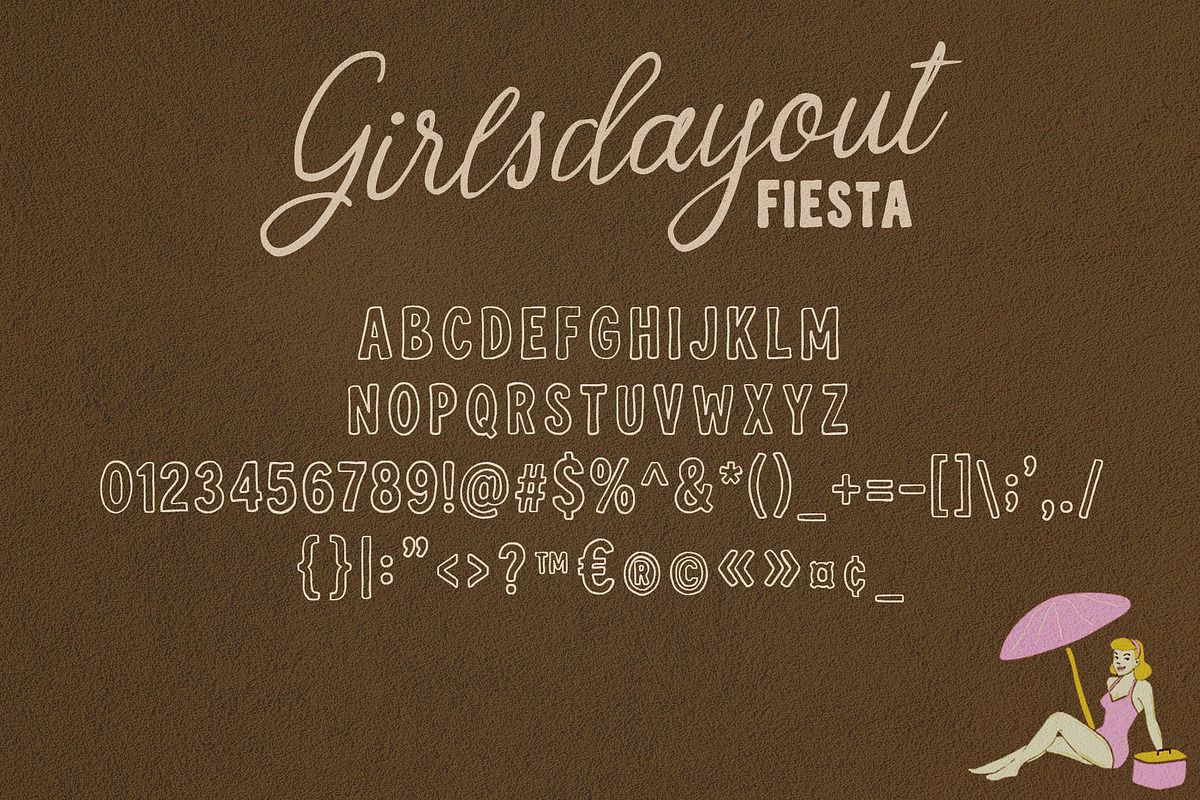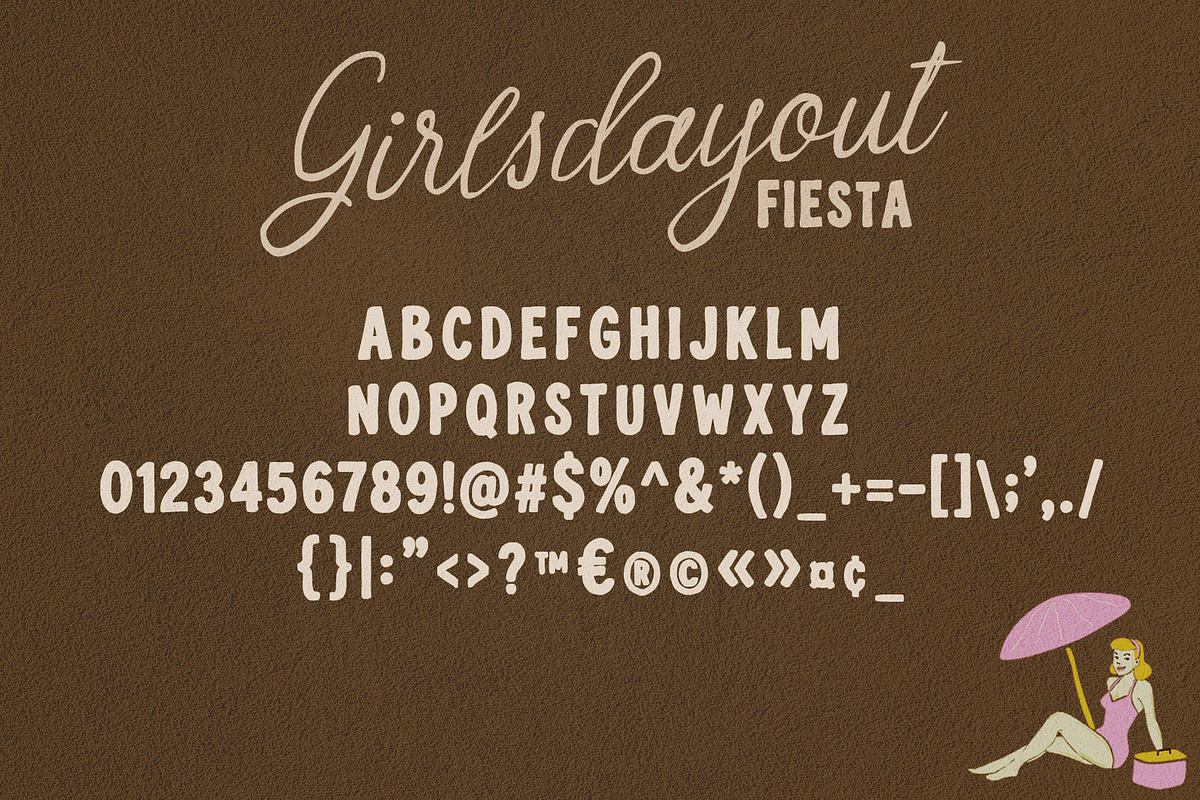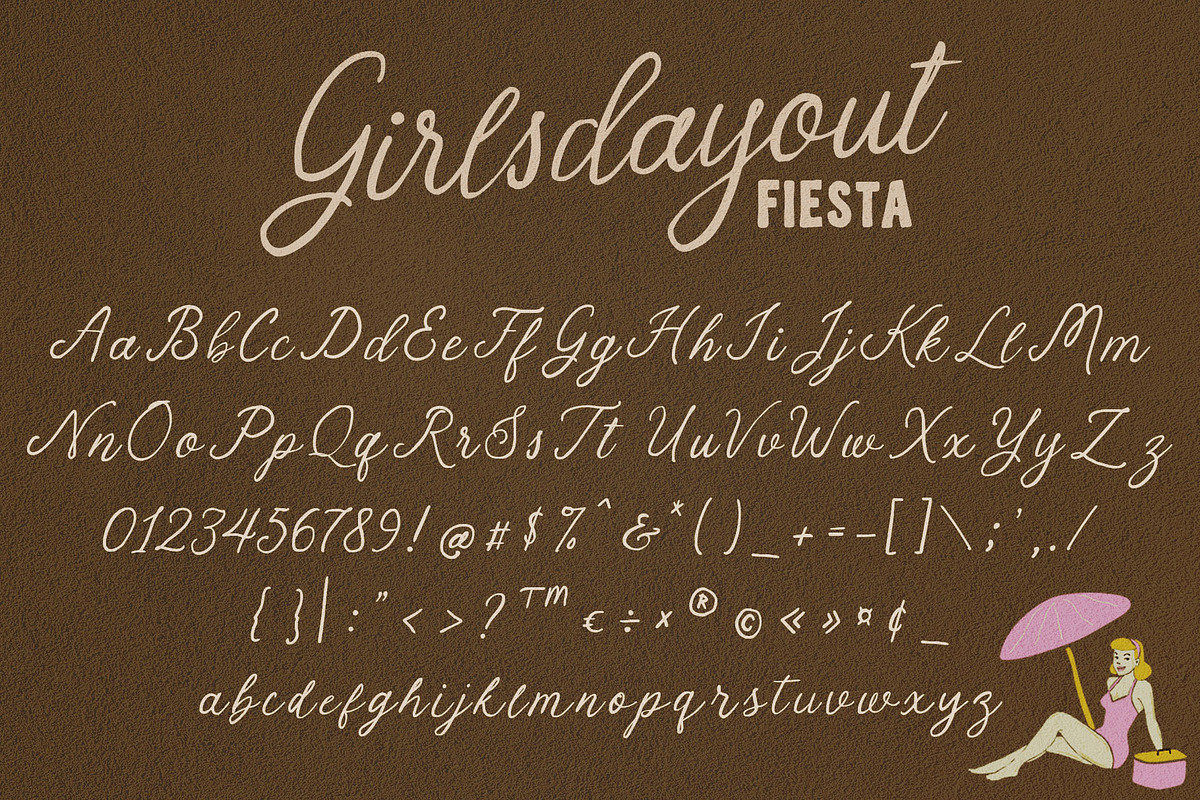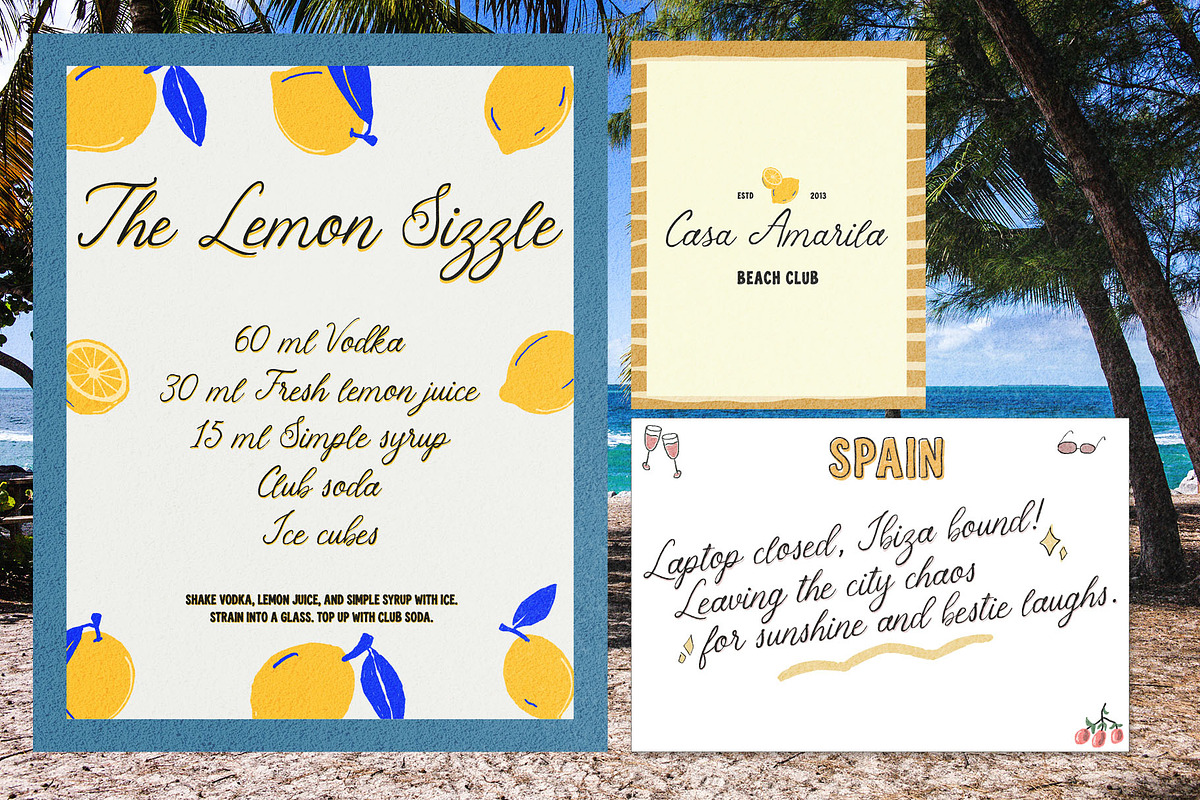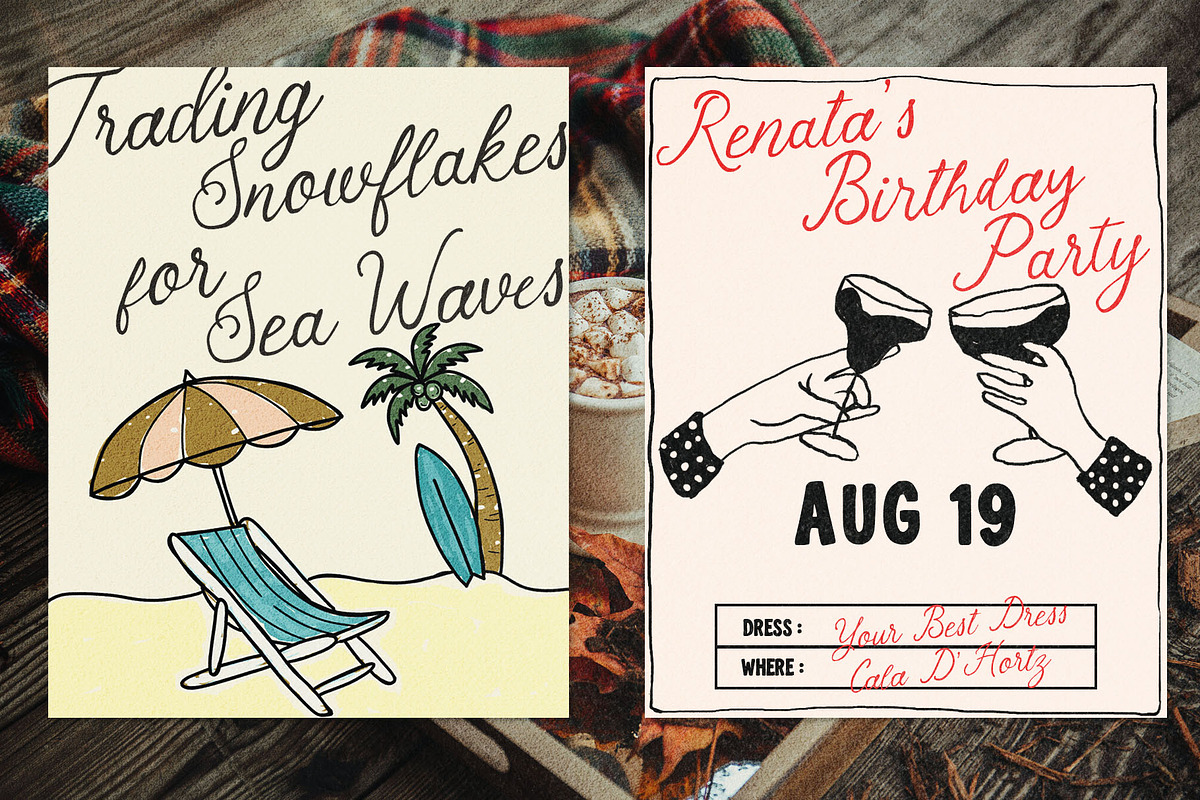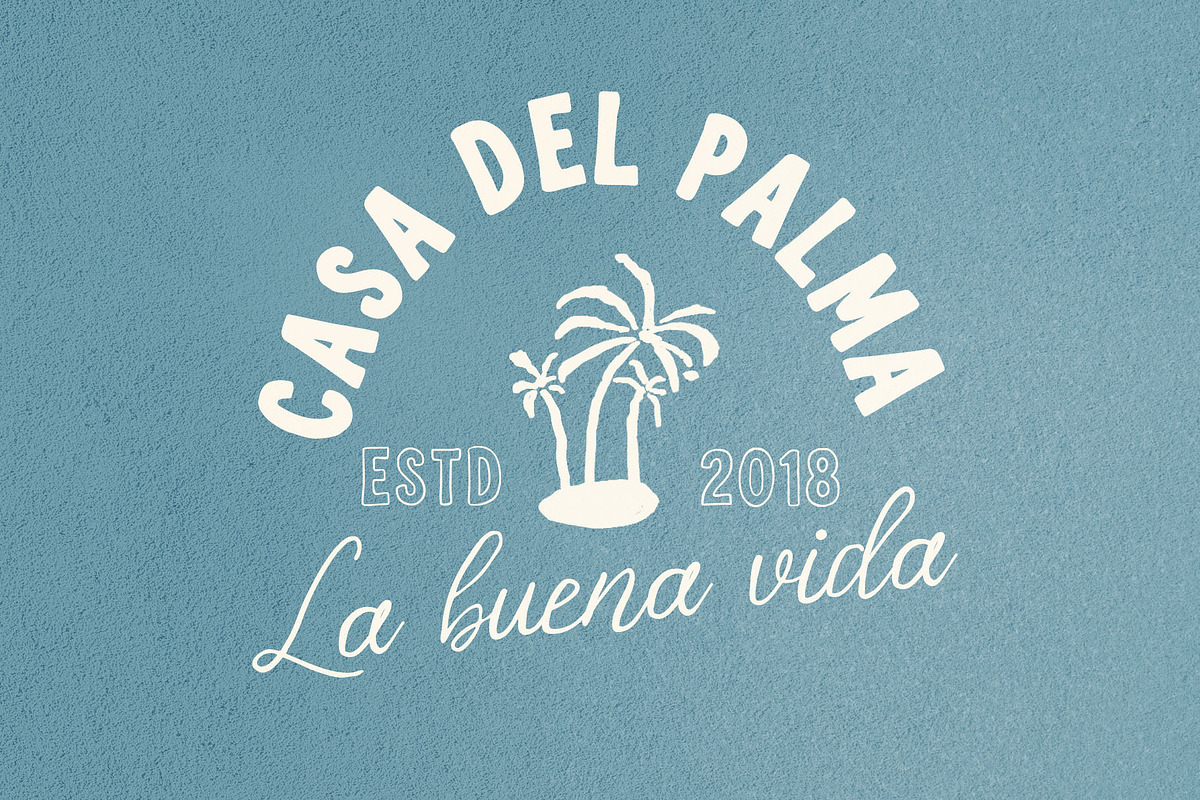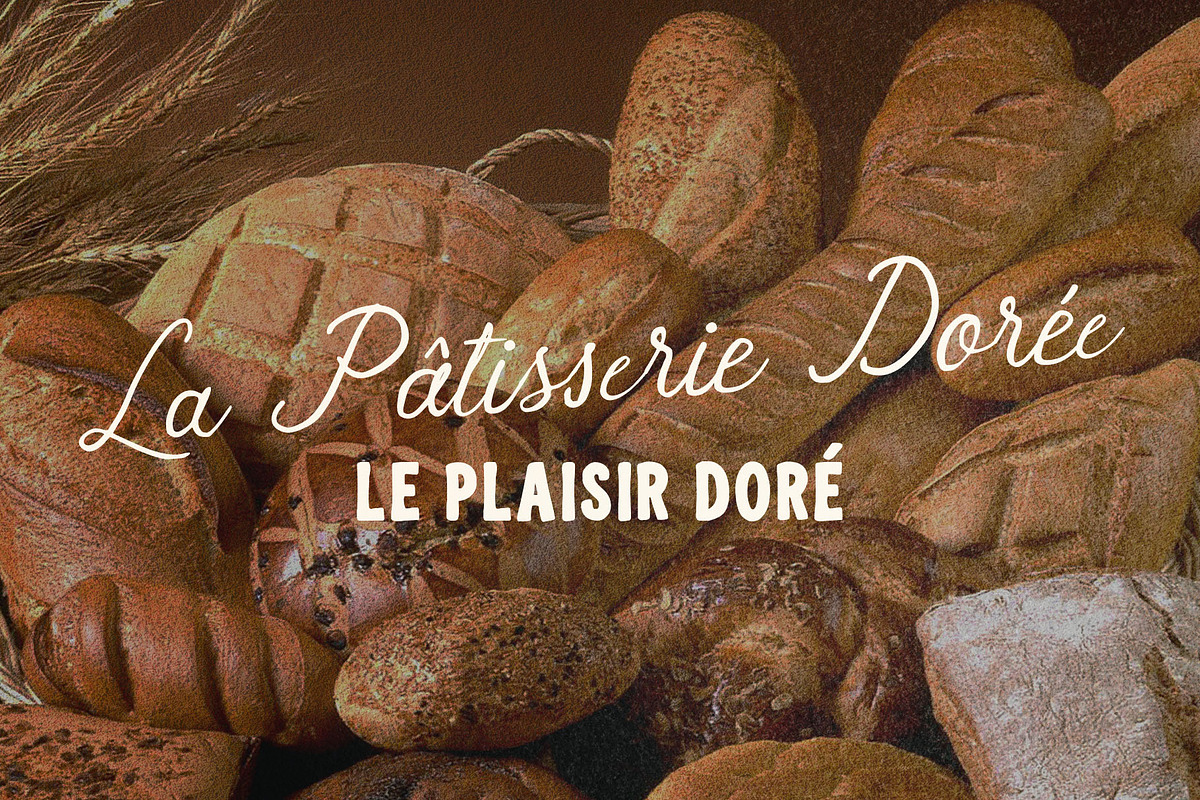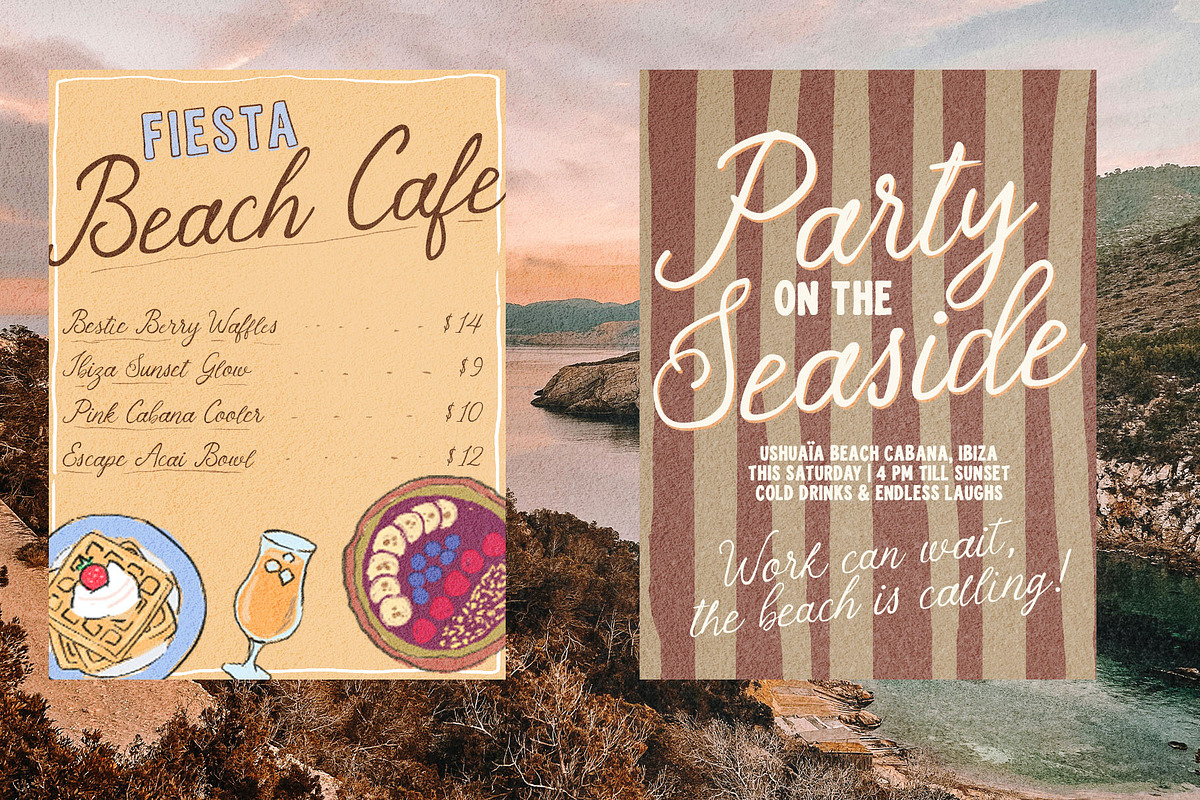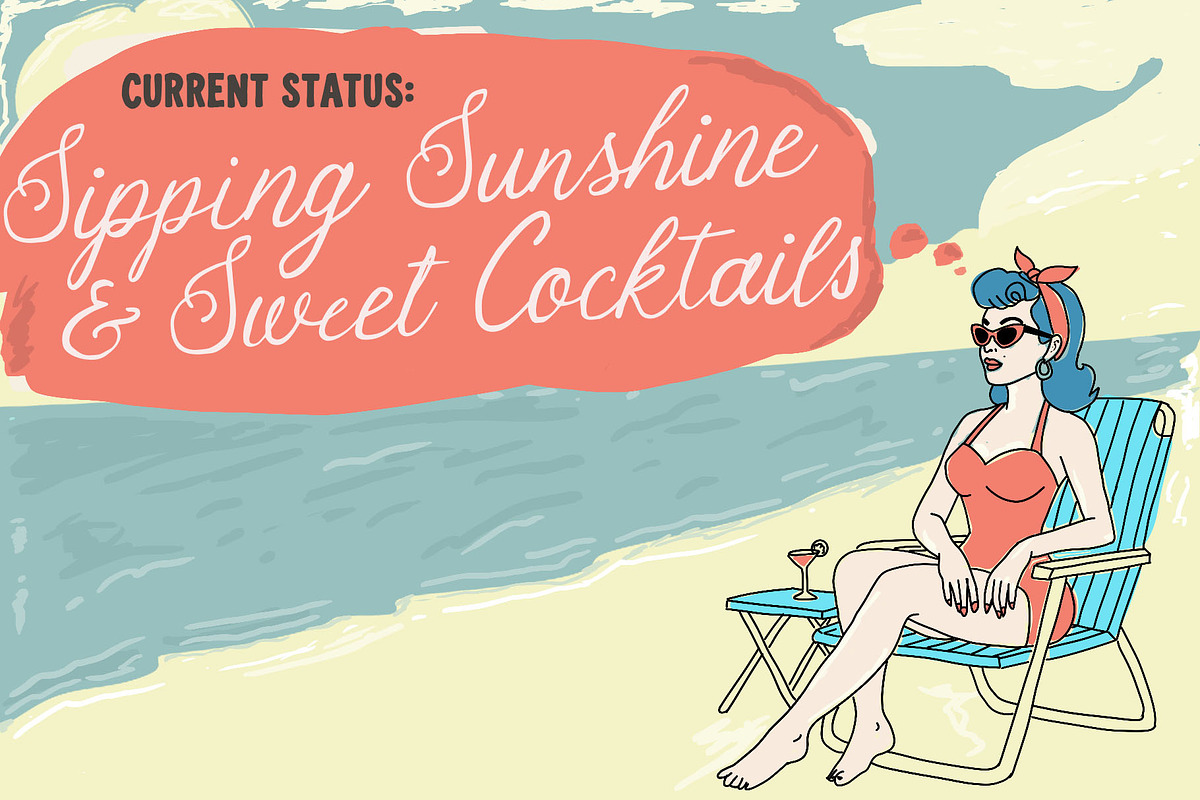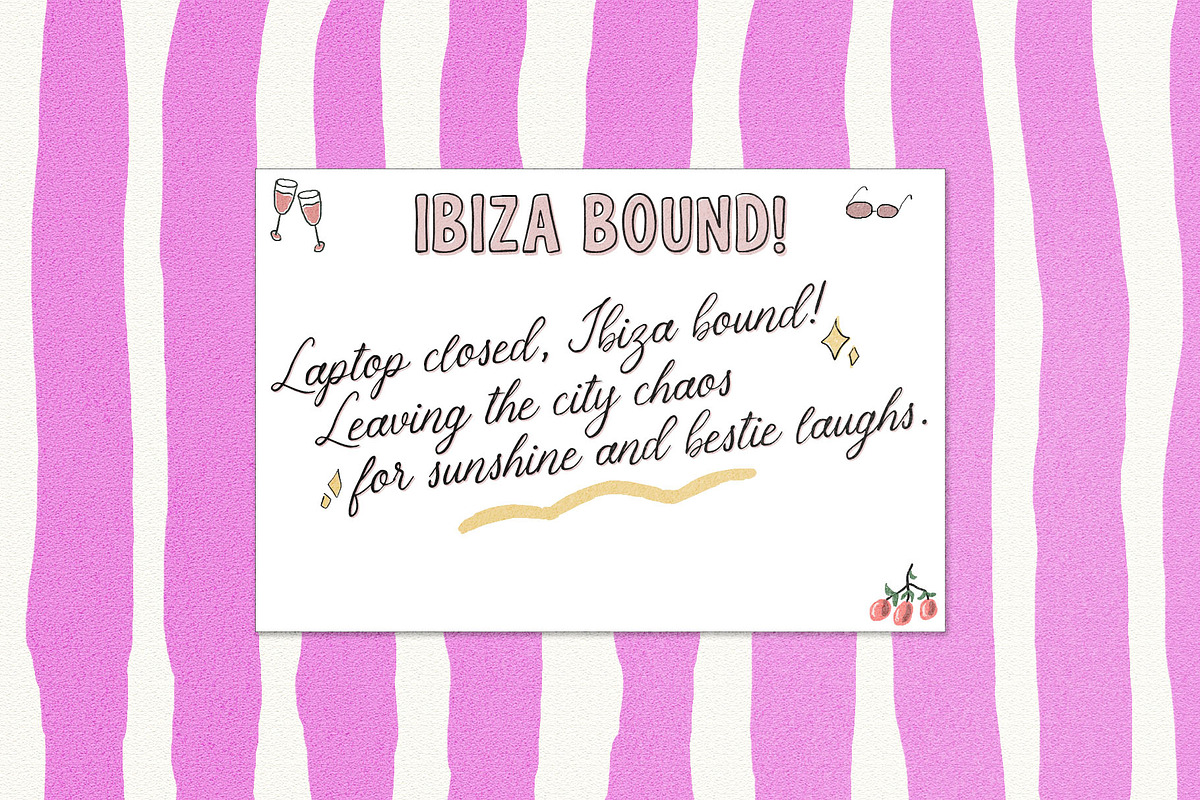
Girlsdayout Fiesta – Font Trio
Bring the ultimate celebration of joy, friendship, and vibrant energy to your designs with Girlsdayout Fiesta! This meticulously crafted font trio combines the warmth of handwritten artistry with the versatility of modern layouts, making it your new go-to creative toolkit.
Whether you are designing a trendy social media campaign, a chic restaurant menu, or a boutique brand identity, this trio works together seamlessly to create instant visual harmony.
What’s Inside the Collection?
The Script: A fluid, energetic handwritten script packed with personality. Perfect for standout headlines, signatures, and focal points.
The Outline Sans: A clean, hollow hand-drawn sans-serif. Ideal for sub-headlines, emphasis, and layered typography effects.
The Regular Sans: A solid, highly legible matching hand-drawn sans-serif. Designed to balance out layouts and handle short blocks of text beautifully.
Perfect for Your Next Creative Project:
Event Invitations: Birthday bash invites, girls' night out flyers, and wedding stationery with a personal touch.
Branding & Packaging: Boutique logos, organic product labels, cosmetics, and custom merchandise.
Food & Beverage: Quirky restaurant menus, coffee shop signage, bakery labels, and food trucks.
Digital Content: Eye-catching Instagram quotes, Pinterest graphics, YouTube thumbnails, and blog headers.